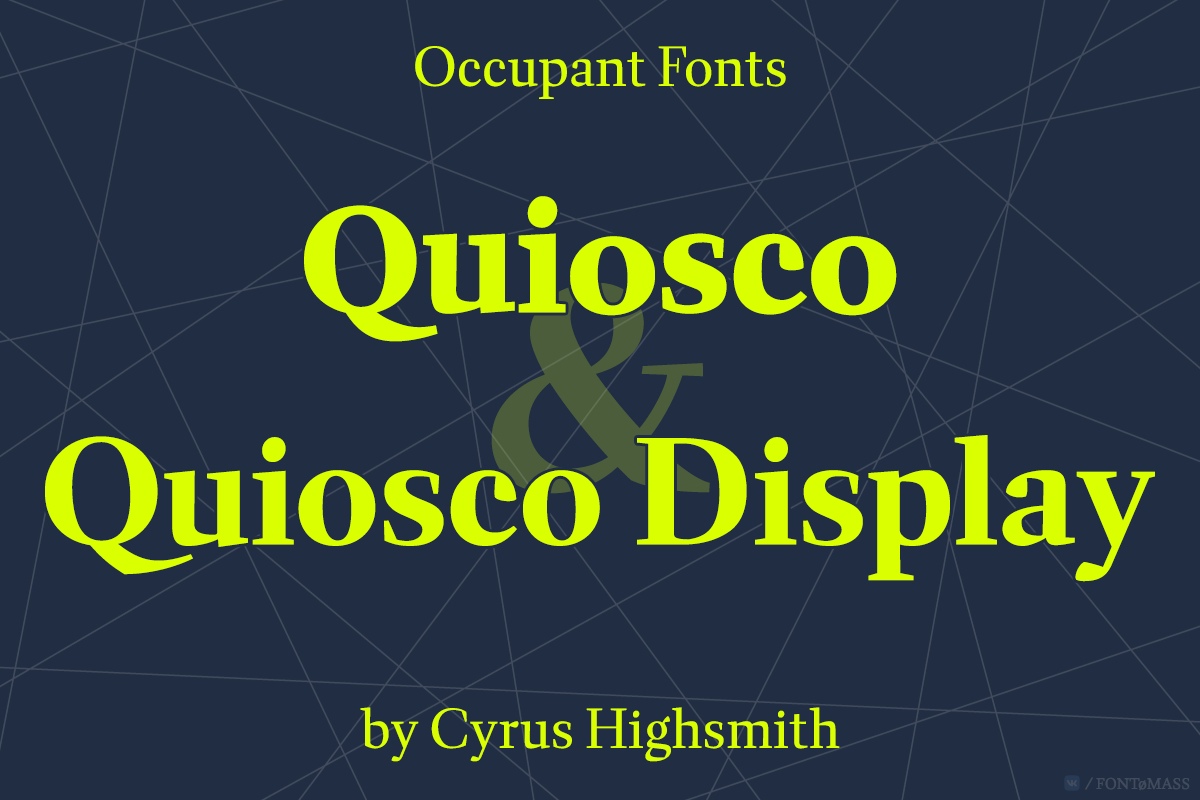
Quiosco Font
Quiosco Font is perfect for newsstand branding, local market signage, newspaper headlines, community bulletin materials, street vendor marketing, urban retail campaigns, neighborhood business communications, and authentic local commerce designs.
What makes Quiosco Font exciting is its authentic street-level character that captures the vibrant energy and community spirit of local newsstands and neighborhood commerce through bold, approachable letterforms that seem to call out from busy street corners. The font features robust shapes with urban-inspired details that reflect the honest simplicity and essential community service provided by local kiosks and neighborhood vendors. Its accessible character and street authenticity make it perfect for brands that want to communicate community connection, local commerce, and the grassroots entrepreneurship that forms the backbone of neighborhood life while creating memorable experiences that celebrate the vital role of small businesses in urban communities.
Quiosco Font family includes various street-smart weights such as Regular, Medium, Bold, and Heavy variations, often featuring urban-inspired alternates and neighborhood decorative elements. The family may include commerce symbols, street vendor ornaments, and community-focused ligatures that enhance the font's local aesthetic, providing designers with comprehensive options for creating authentic typographic compositions that honor neighborhood commerce and street-level entrepreneurship.